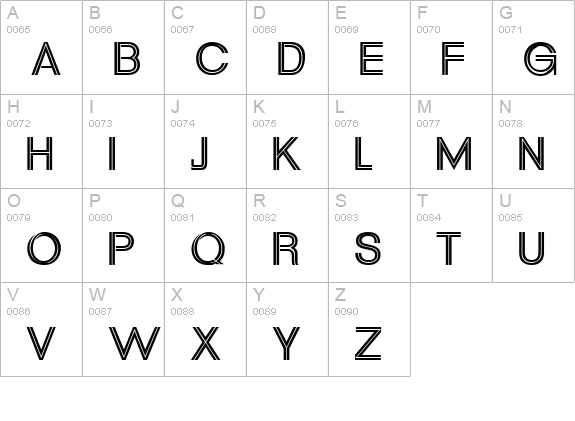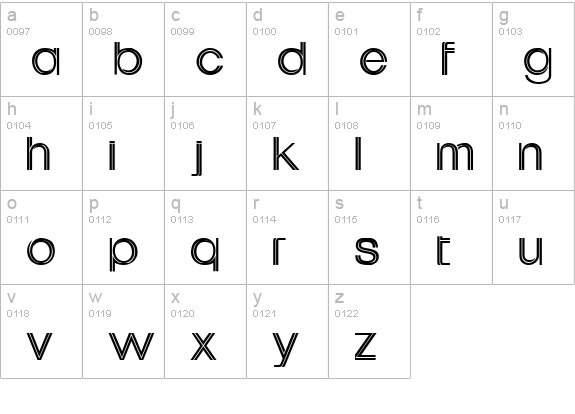
Upperville Normal Font Details
Upperville Normal is the standard, neutral variant in the Upperville typeface family \xE2\x80\x94 well suited to general body text, paragraphs, and standard typographic work.
Introducing Upperville Normal, a truly remarkable font that effortlessly blends elegance with versatility. This font exudes a timeless charm that is sure to captivate any audience. With its clean and sleek lines, Upperville Normal is perfect for a wide range of design projects, from sophisticated logos to eye-catching headlines. One of the most outstanding features of Upperville Normal is its incredible readability. Each character is meticulously crafted to ensure clear legibility, making it an ideal choice for both print and digital media. Whether used in body text or as a headline, this font guarantees a smooth reading experience for your audience. Upperville Normal also offers an extensive character set, including uppercase and lowercase letters, numbers, punctuation marks, and various special characters. This versatility allows you to experiment with different styles and compositions, resulting in truly unique and captivating designs. What's more, Upperville Normal is freely available to download at FontsMarket.com. This means that you can access this exceptional font without any cost, allowing you to enhance your design projects without breaking the bank. Its availability on FontsMarket.com ensures a seamless and convenient downloading process, making it easier than ever to incorporate Upperville Normal into your creative endeavors. Whether you're a professional designer looking to elevate your work or an enthusiast seeking to add a touch of elegance to personal projects, Upperville Normal is the perfect choice. With its timeless appeal, exceptional readability, and the convenience of being freely available at FontsMarket.com, this font is a must-have addition to your font collection. Elevate your designs and captivate your audience with Upperville Normal today.